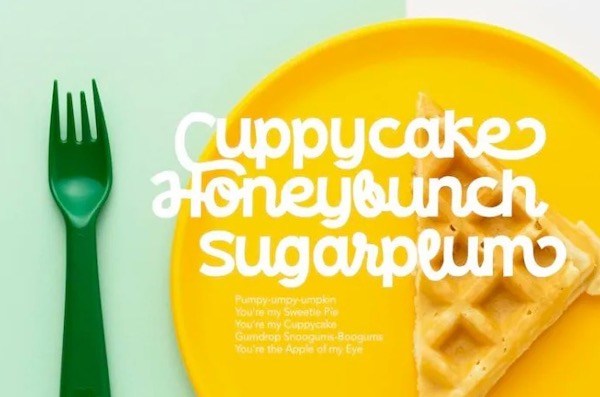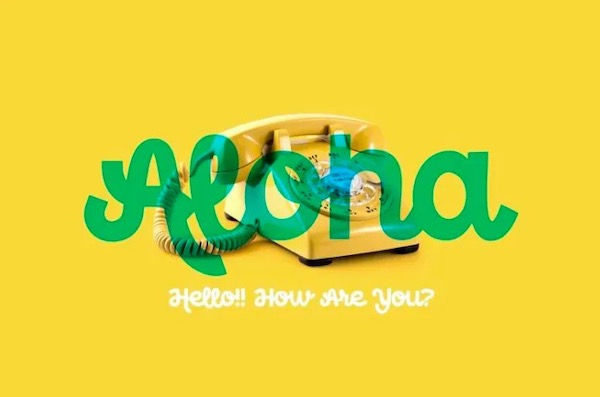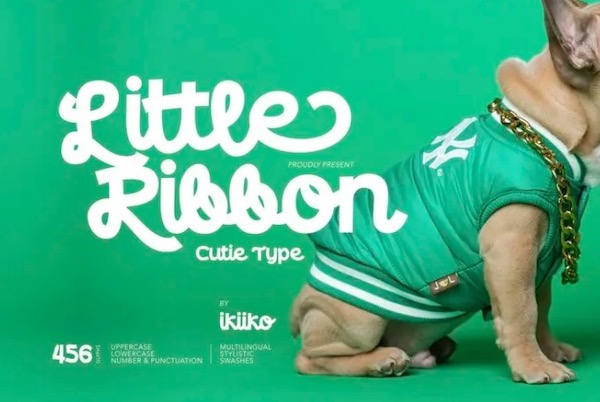
Little Ribbon is an elegant stylish handwritten script font that was designed and shared by Ikiikowrk Type. It has simple lines combining bold shapes that make a great design.
Little Ribbon Handwritten Font
Designer Name: Ikiikowrk Type